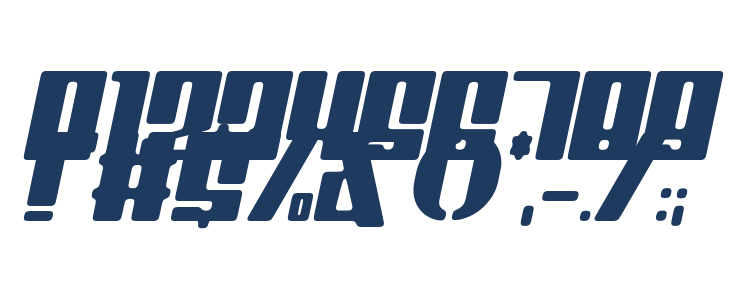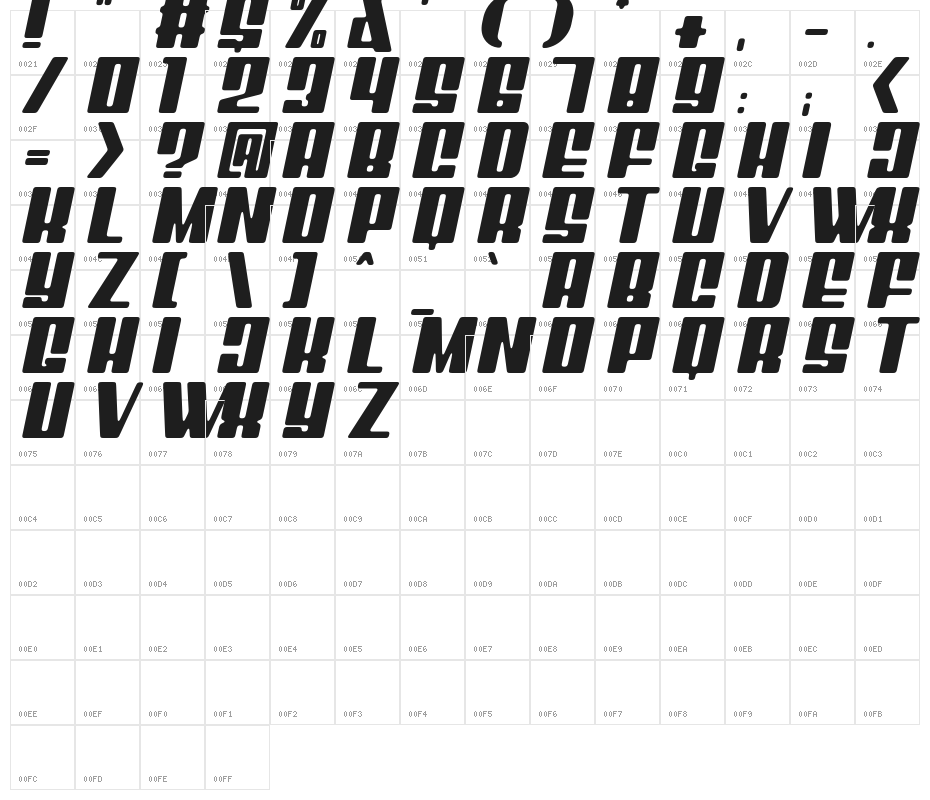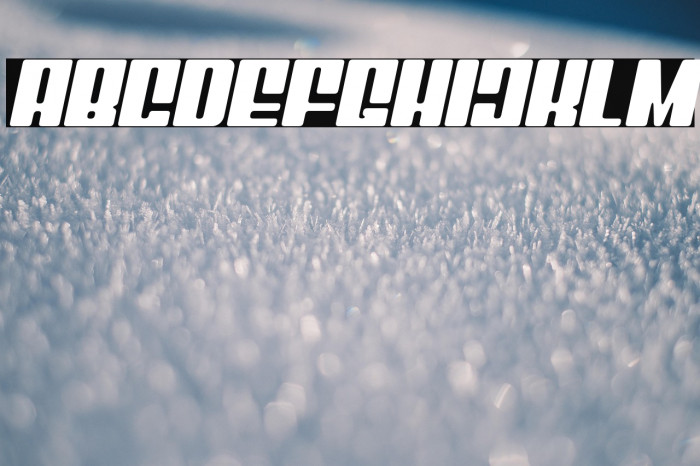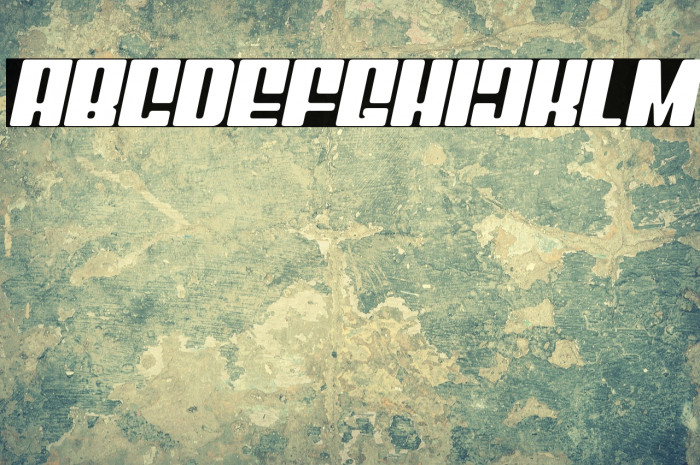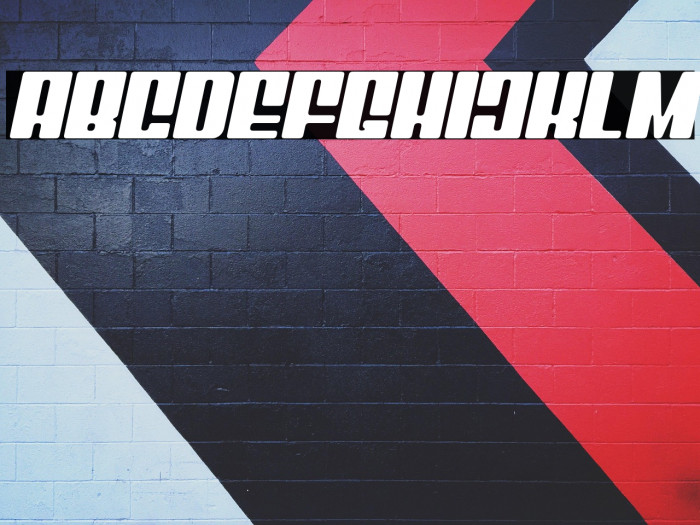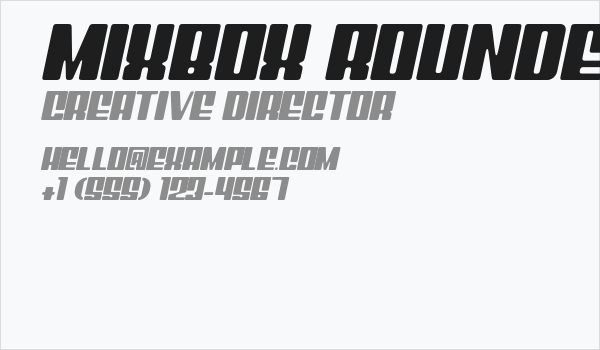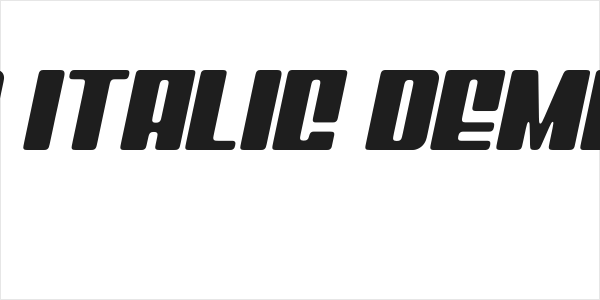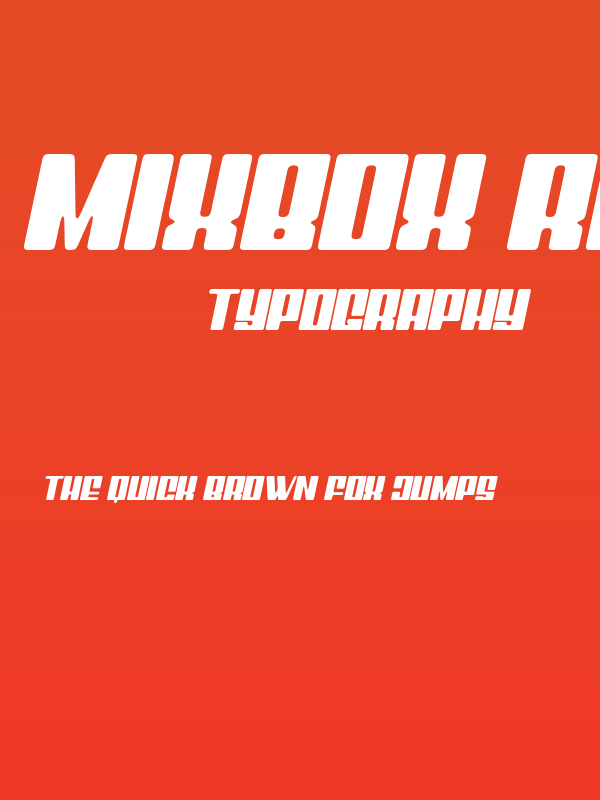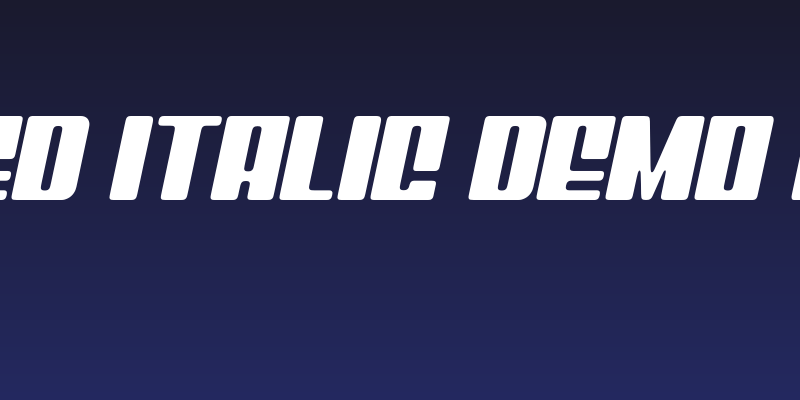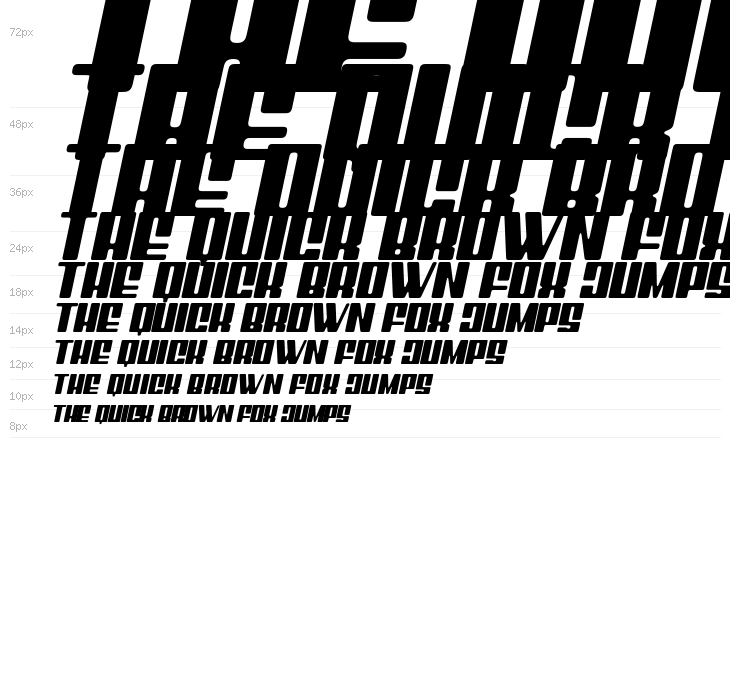
Mixbox Rounded Italic Demo Rounded italic Font
Mixbox Rounded Italic Demo Rounded italic Description
This font features a bold, rounded style with a distinct italic slant, giving it a dynamic and modern appearance. The characters are wide and robust, with a consistent stroke thickness that adds to its boldness. The rounded edges soften the overall look, making it approachable yet assertive. The uppercase and lowercase letters maintain a uniform style, while the numerals and special characters complement the alphabet with their cohesive design. This font's unique blend of rounded forms and italic posture makes it stand out, suitable for various creative applications.
| Proposed Projects | Ideal for branding, advertising, posters, and digital media where a bold statement is needed. |